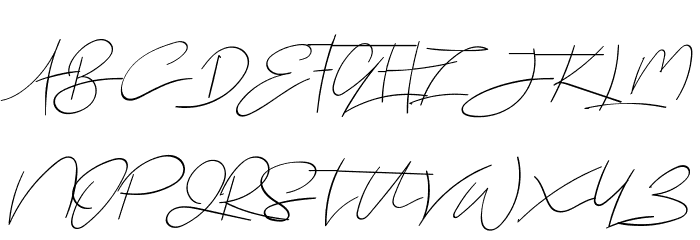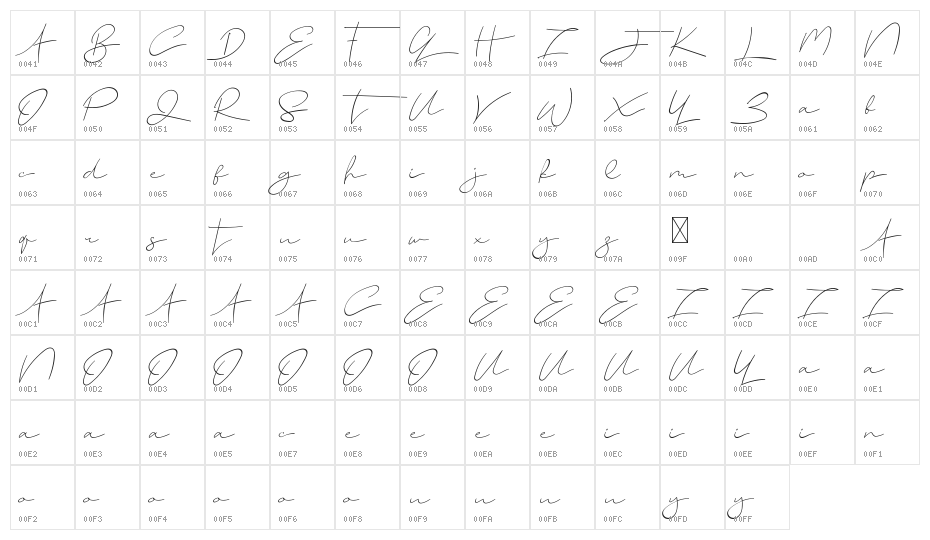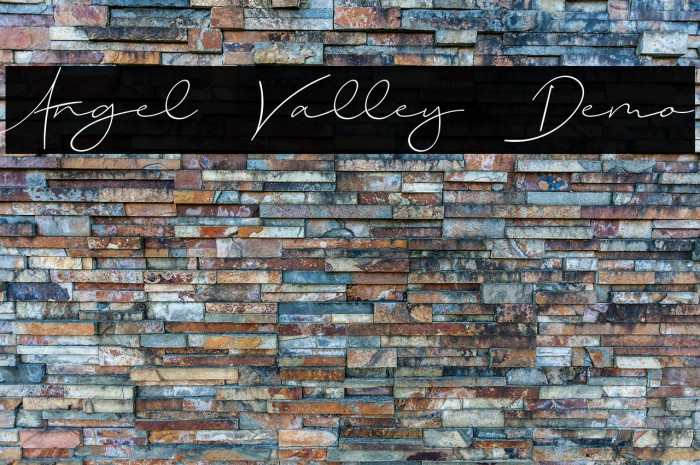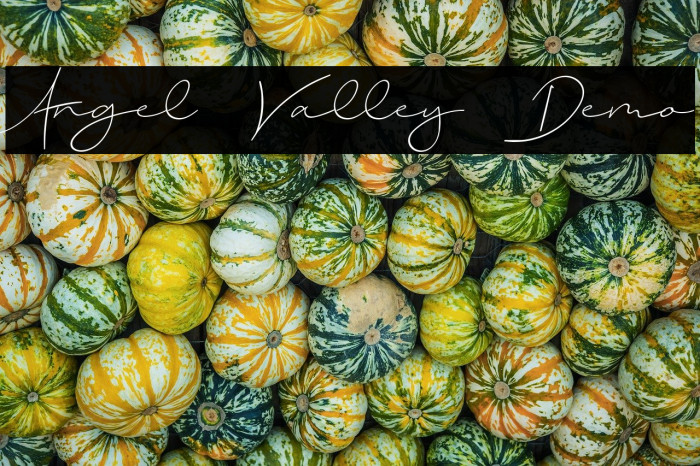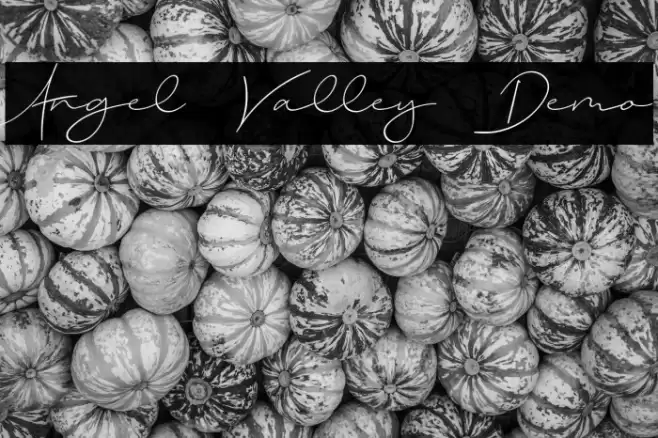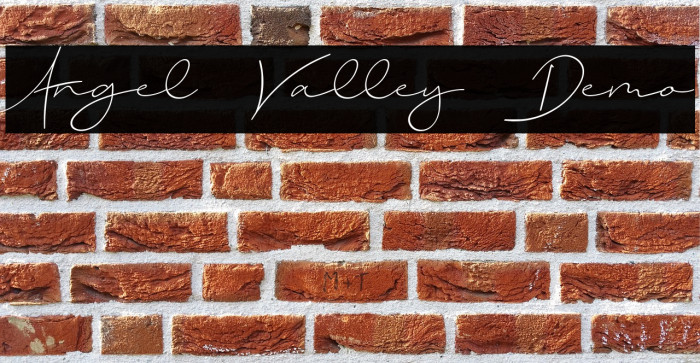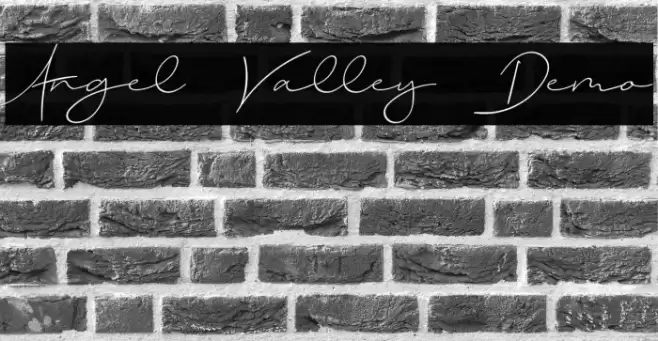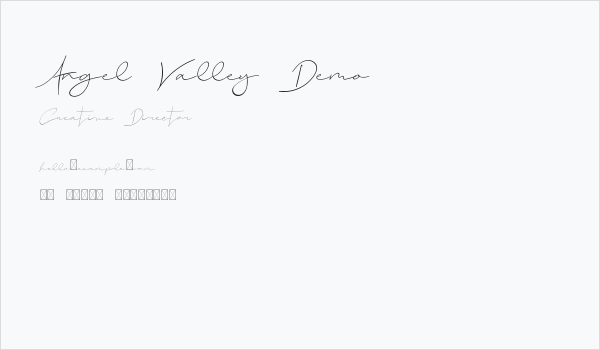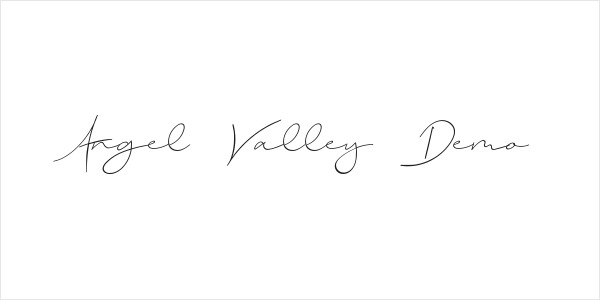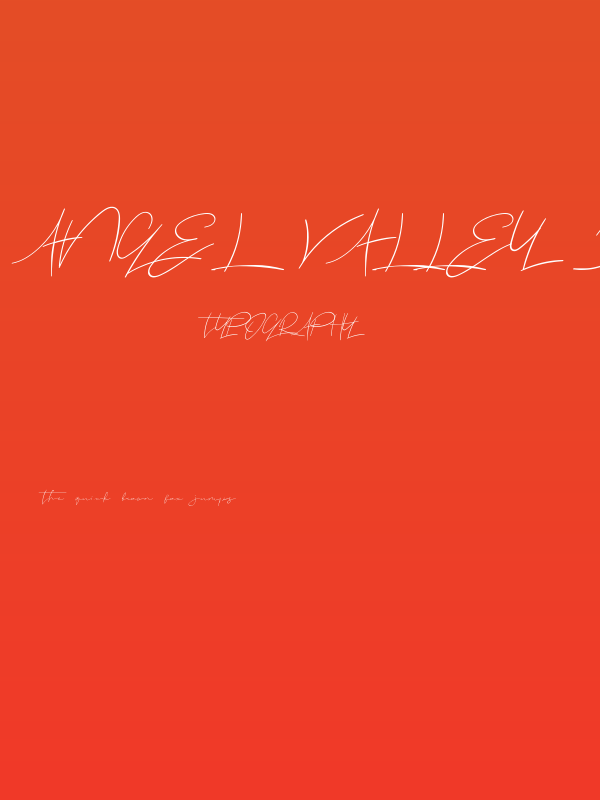
Angel Valley Demo Font
Angel Valley Demo Description
This font features a fluid and elegant script style, characterized by its flowing, interconnected letters that mimic natural handwriting. The strokes are thin and delicate, giving it a sophisticated and airy appearance. The uppercase letters are particularly ornate, with sweeping curves and loops that add a touch of flair. The lowercase letters maintain a consistent style, with smooth transitions and a graceful flow. The overall design is modern yet timeless, making it suitable for a variety of applications where a personal and artistic touch is desired.
Use CaseLogos, Invitations, Artistic projects
Proposed ProjectsIdeal for wedding invitations, personal branding, elegant stationery, and artistic projects.